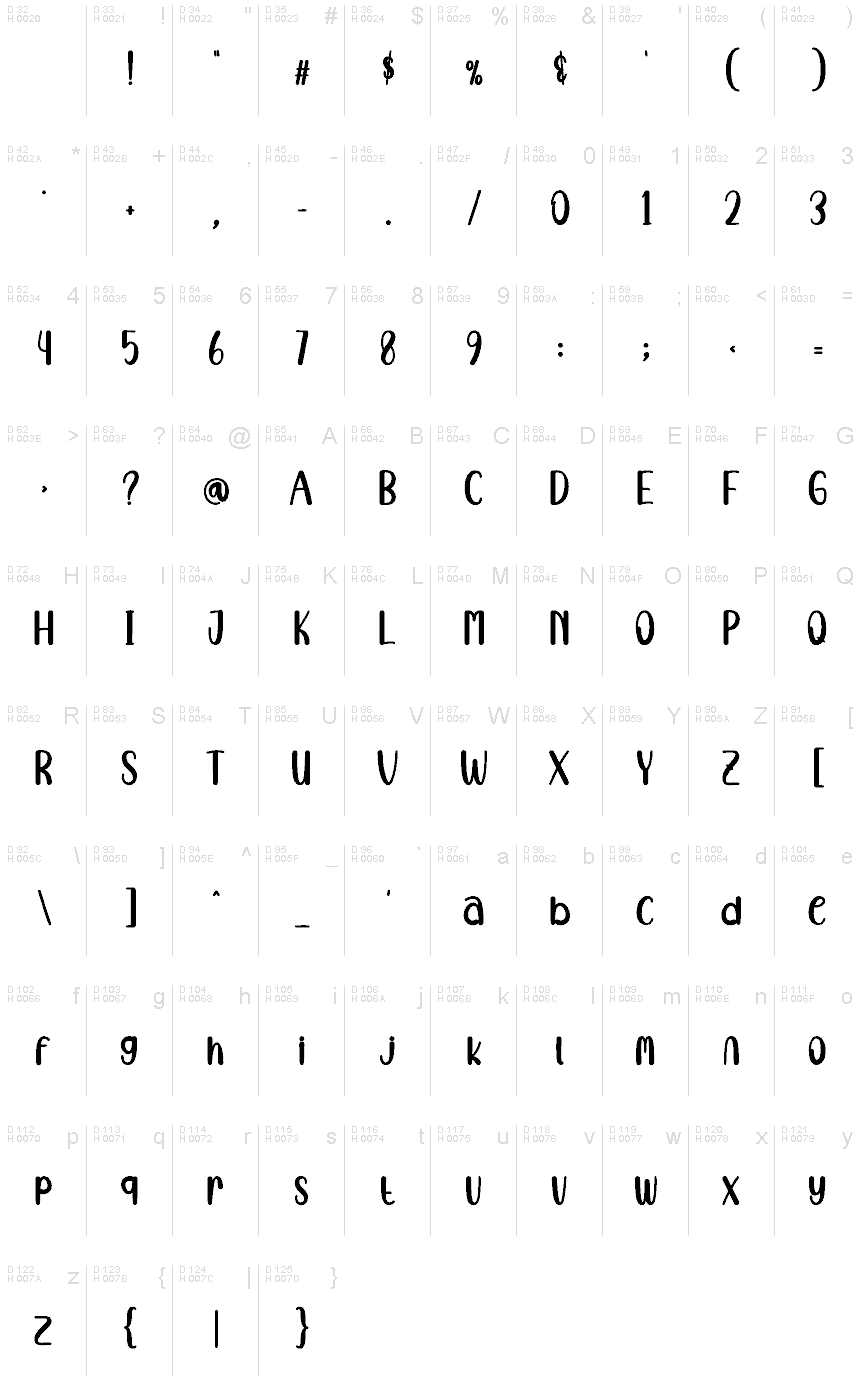
Summer Sun
Summer Sun font by Scratchones is a handwritten typeface with a condensed width. This casual and approachable font presents an appealing modern look thanks to its relaxed and simple style, in addition to a clean overall appearance. Give your creative attempt something new and different by using this great free handwritten font today.
Summer Sun is ideal for posters, banners, flyers, business cards, social media posts, magazines or newspaper fonts. Use it for restaurant menus covers or custom printed t-shirts graphics in apparel branding. It can bring the right vibes to comic books or photography-related projects as well!